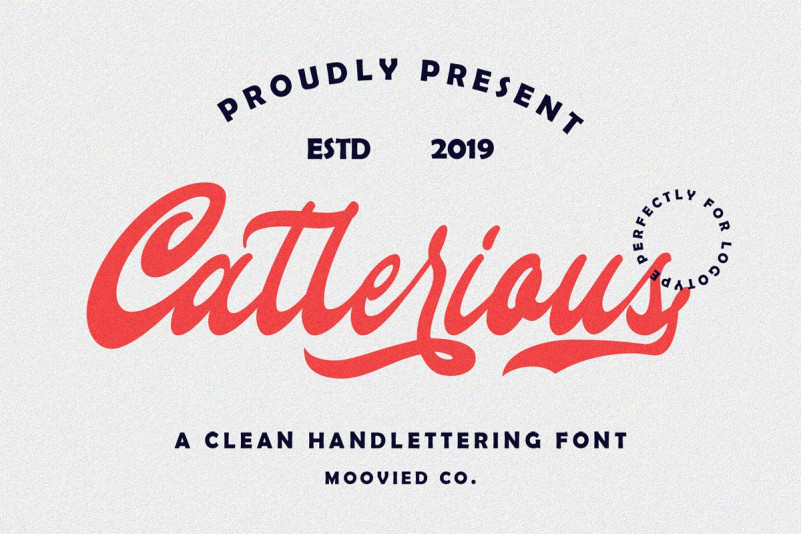
Retro Calligraphy Font
Retro Calligraphy Font is a handwritten font that looks stylish and nostalgic. Its letters have a classic, vintage feel, making your text stand out with a charming, old-school vibe.